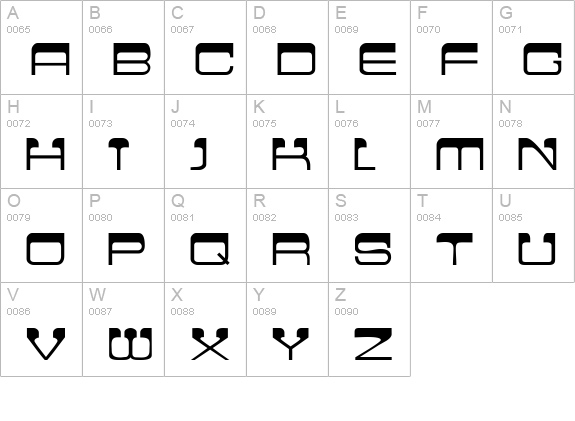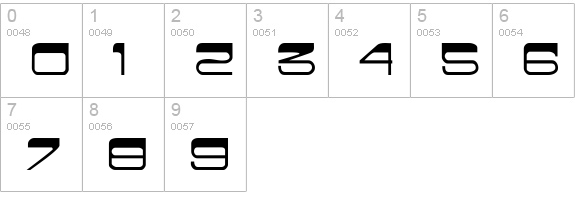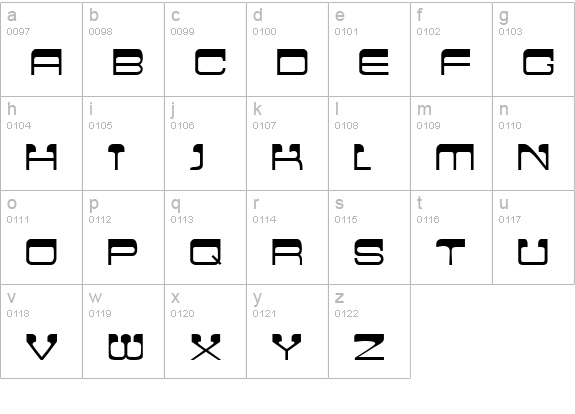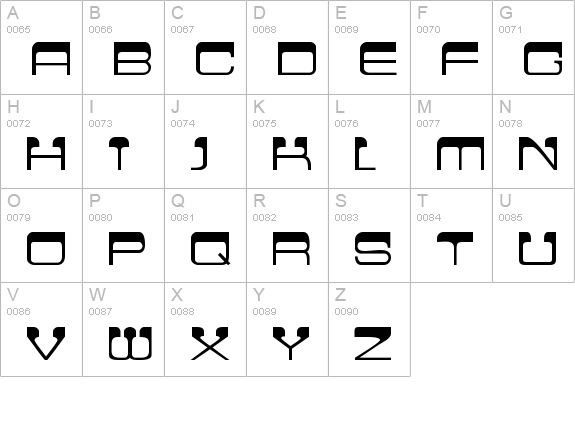
CrewCutCaps Font Details
Introducing CrewCutCaps font, a modern and stylish typeface perfect for adding a touch of sophistication to your projects. This font features clean lines and a bold presence that commands attention. With its unique design, CrewCutCaps is versatile and can be used for various design purposes, from logos to branding, posters, and more. What sets CrewCutCaps apart is that it is available for free download at FontsMarket.com. This means you can easily access this high-quality font without any cost, making it a valuable addition to your font collection. Don't miss out on the opportunity to elevate your designs with the sleek and professional look of CrewCutCaps font. Download it today and start creating stunning visuals that stand out from the crowd.